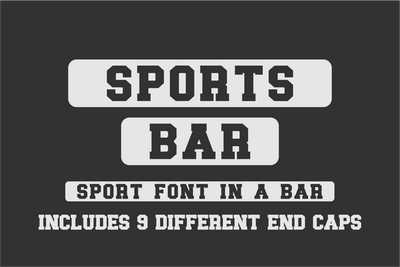
JP Sports Bar Font - Athletic Font - Sporty Font - otf - Open Type Font - Collegiate Font - Silhouette - Cricut - Digital Download
JP Sports Bar font has some unique features. The upper case has more spacing between the letters and the lower has the letters closer together. Use the keystroke guide to made 9 different end caps